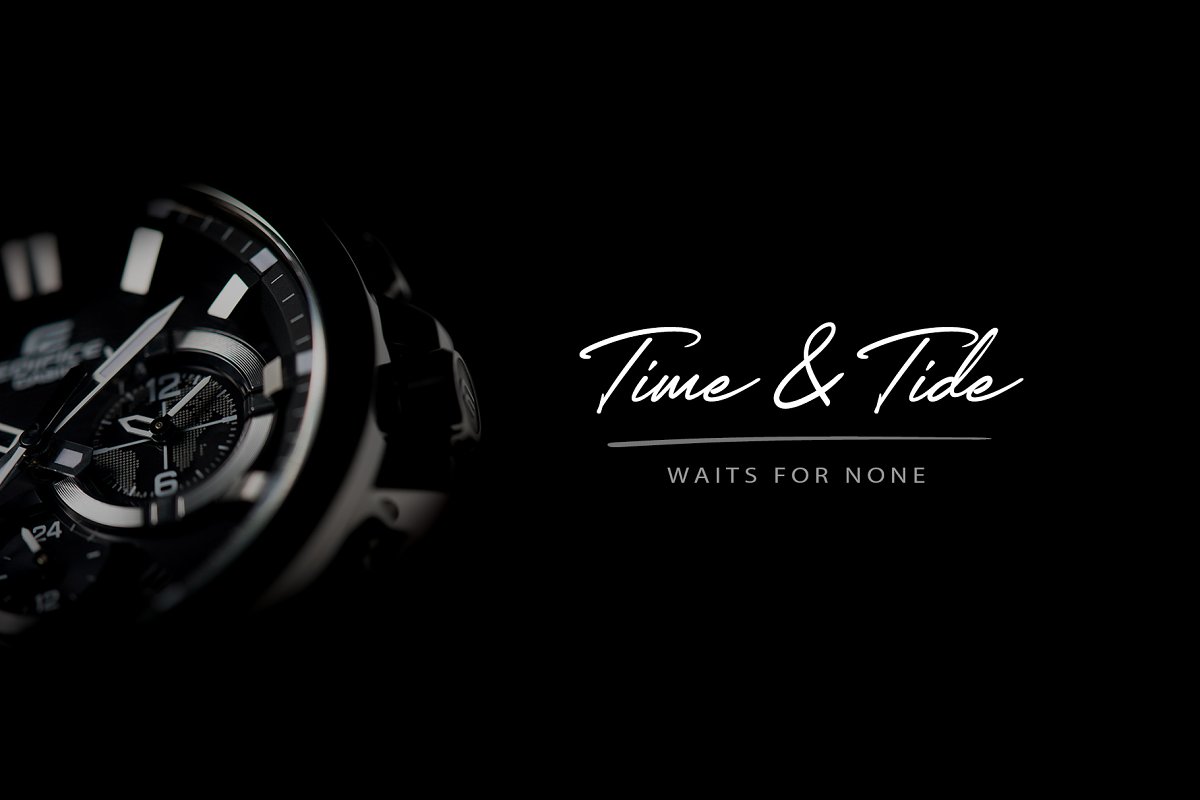
About the Destiny Handwritten Font
Destiny is a nice handwritten Font, It gives a complete authentic feel on your text, Total 267 glyphs available including alphabets, numerals, punctuation, ligature, alternate, swash and international characters, Hope this Font will be fit on your next design project, Features:Standers Lettersbeginning swashEnding swashLigaturesUnderline strokesMultilingual LettersFile Included:Destiny